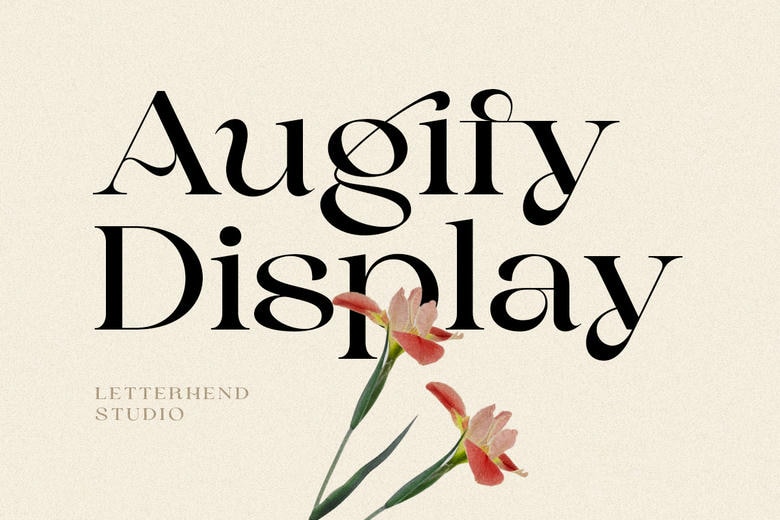
Augify Display Font
Augify is a high style serif with a special letter shape. It supports many beautiful ligatures which basically you can manipulate to fit in your project or work, may it is for a stand out headline or even a tag-line, it name it.
Augify Display Serif Font